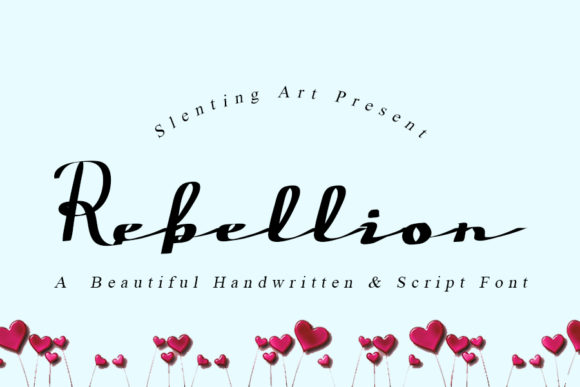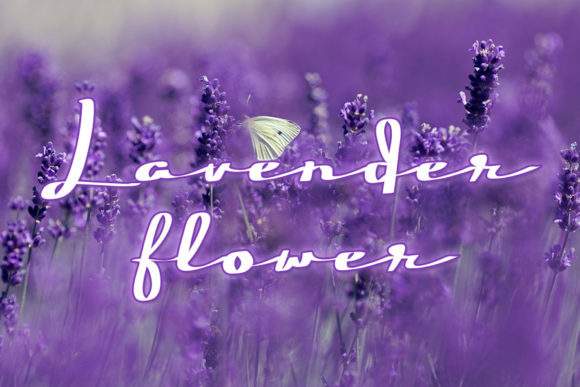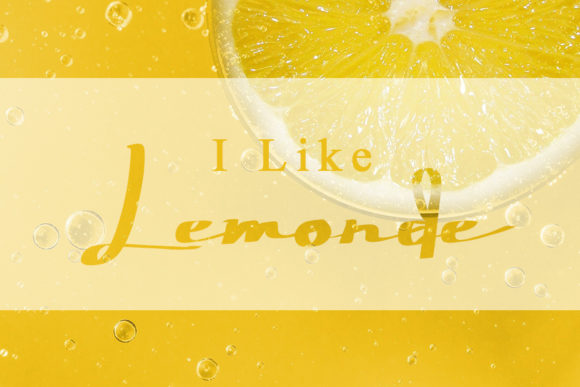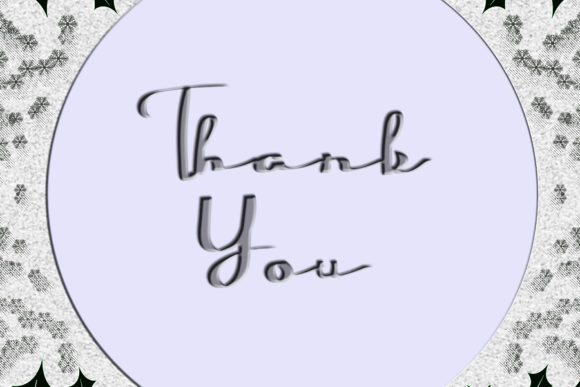
About Rebellion Font
Rebellion is a beautiful light handwritten font with a unique feel and a stunning impact. It will add a luxury spark to any design project that you wish to create!